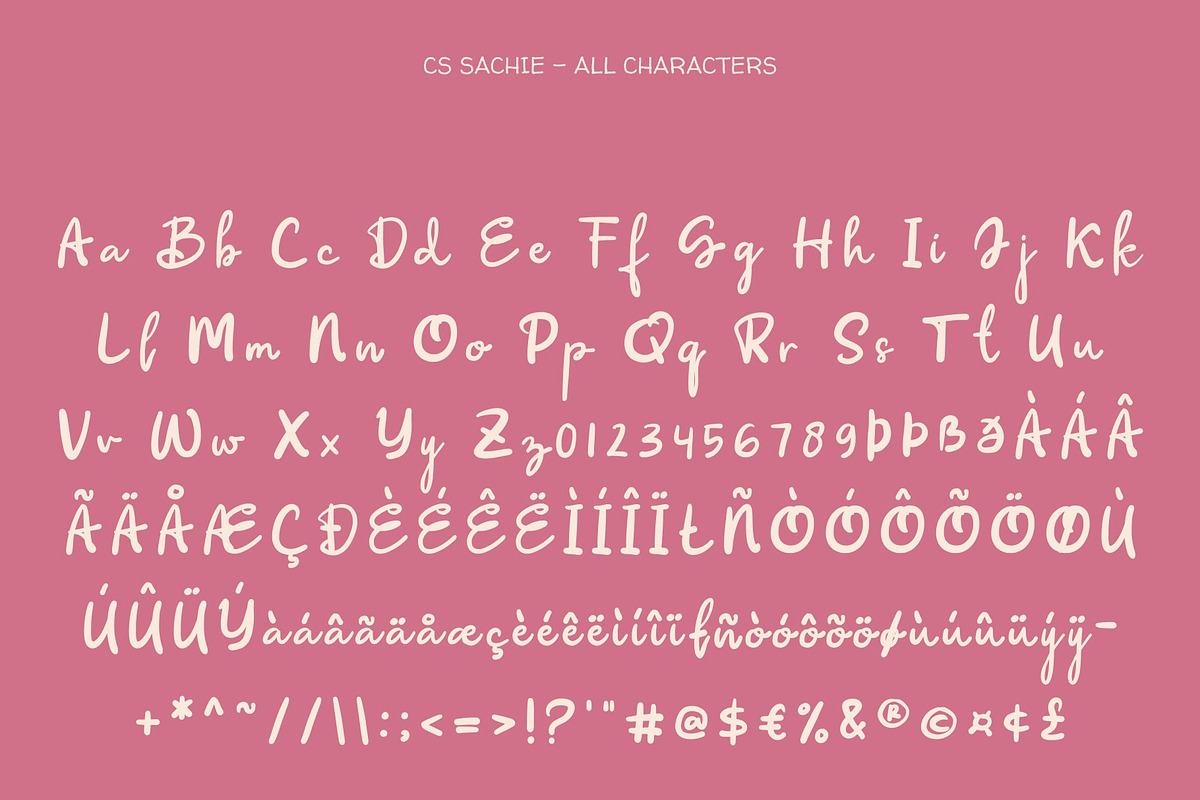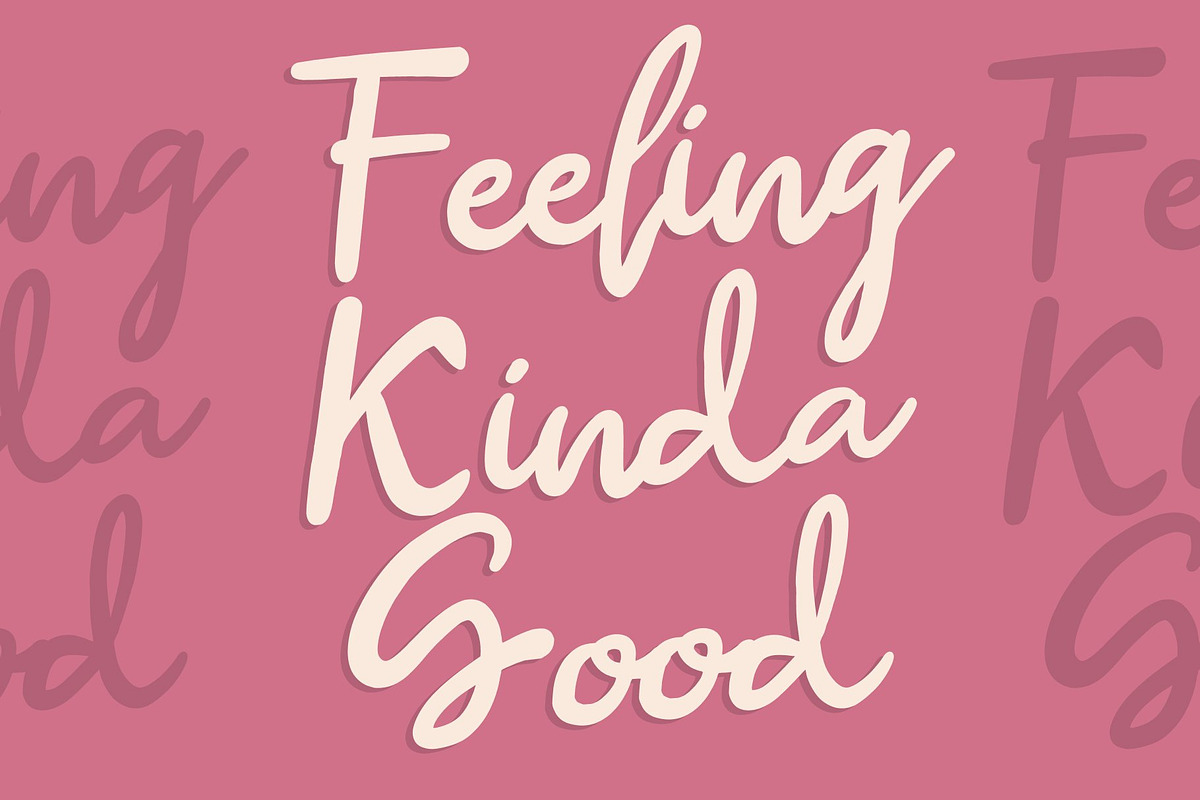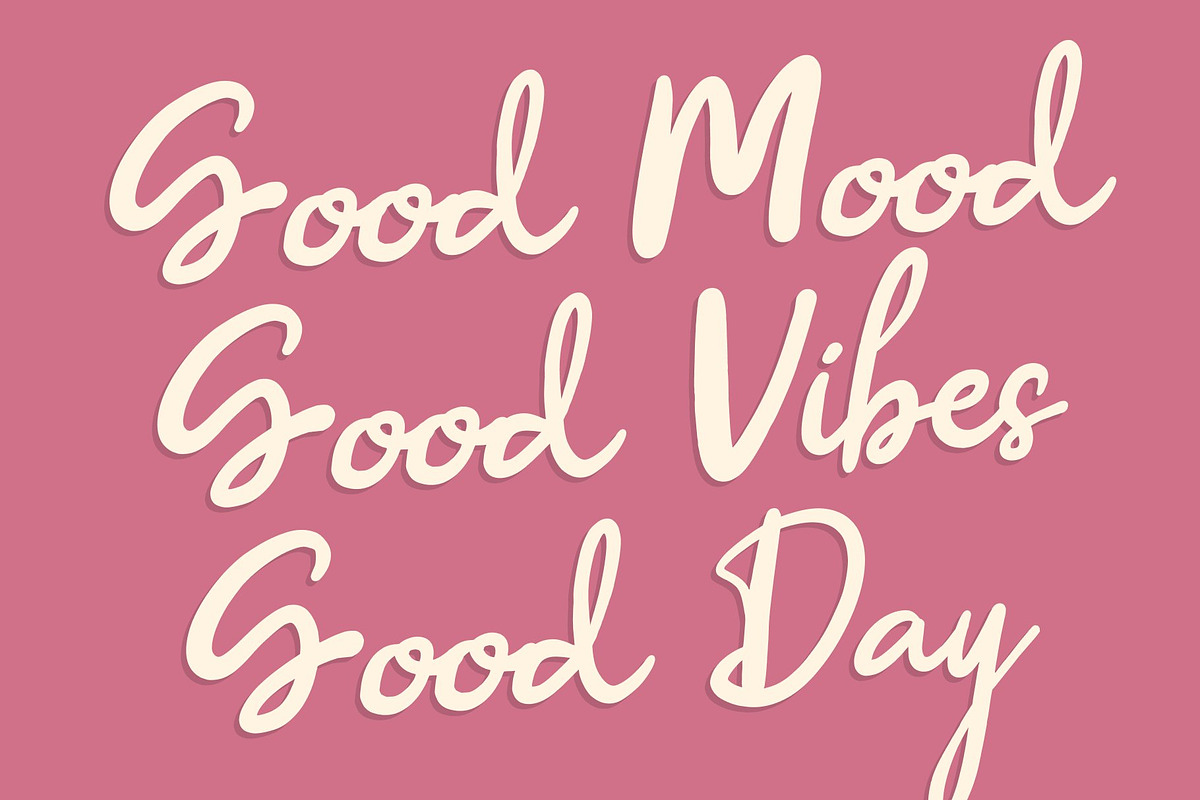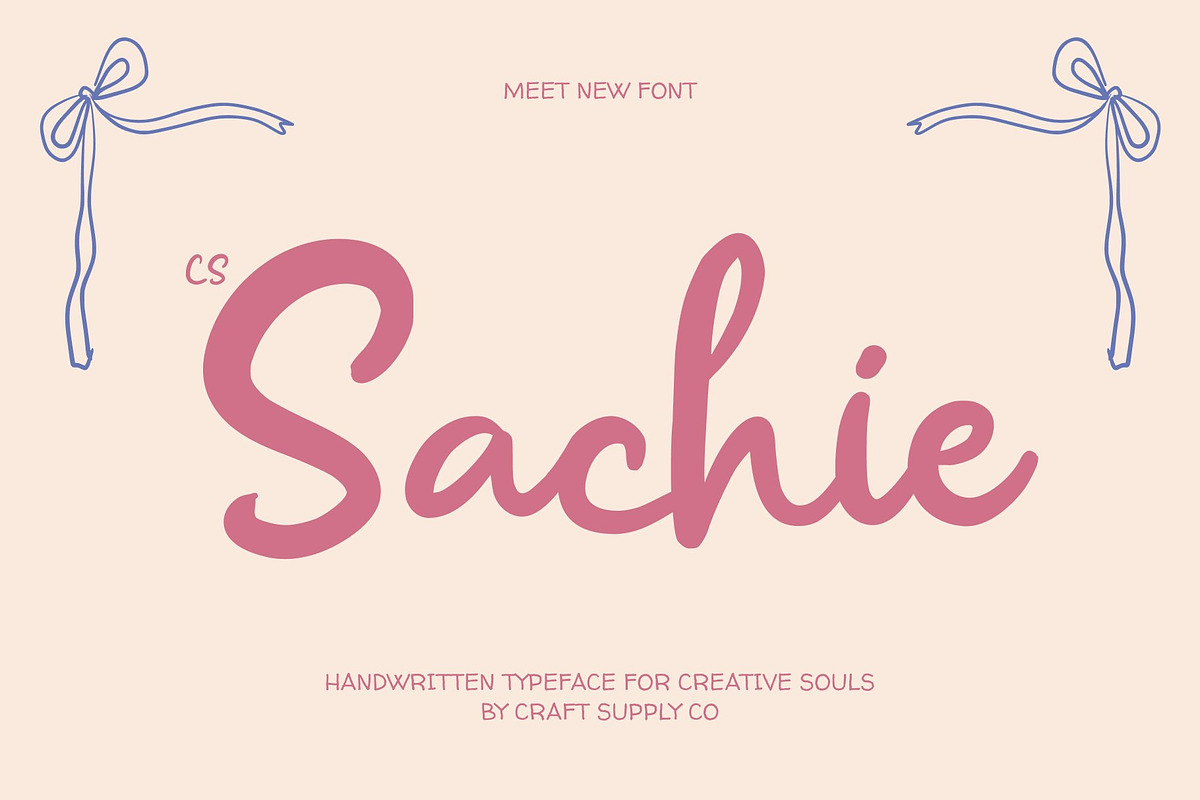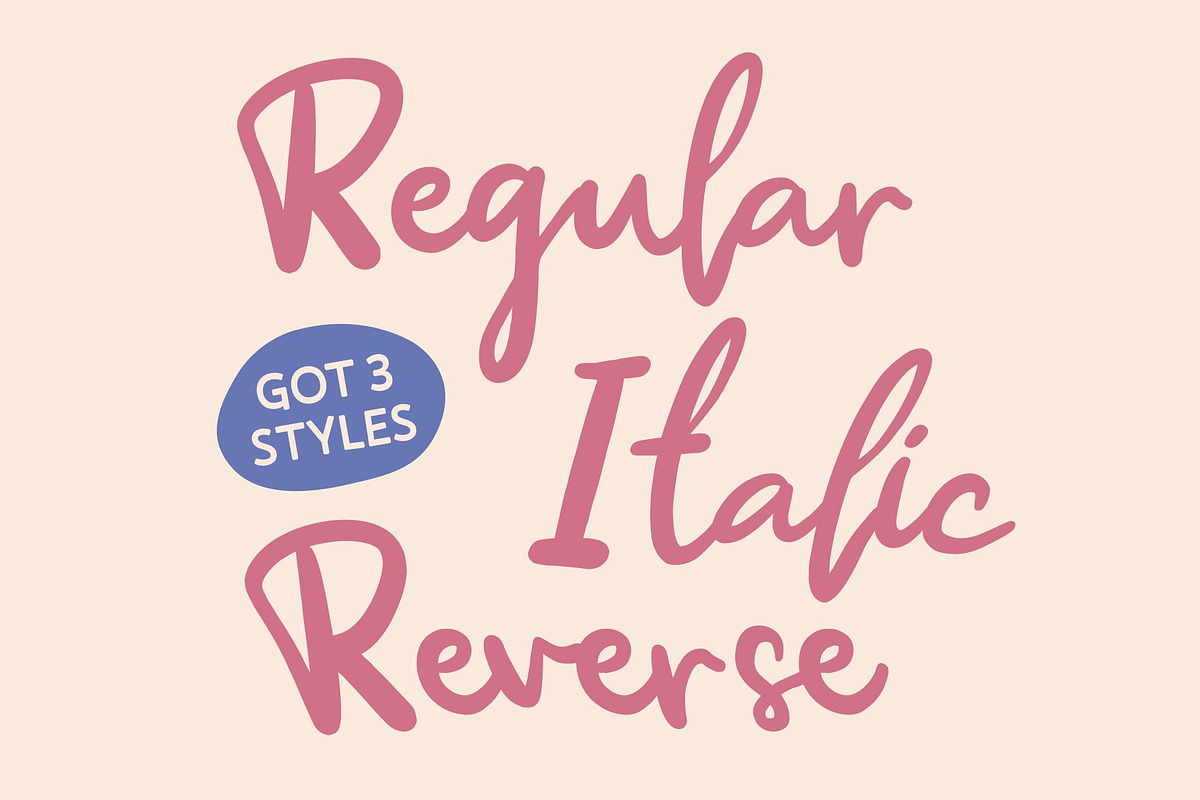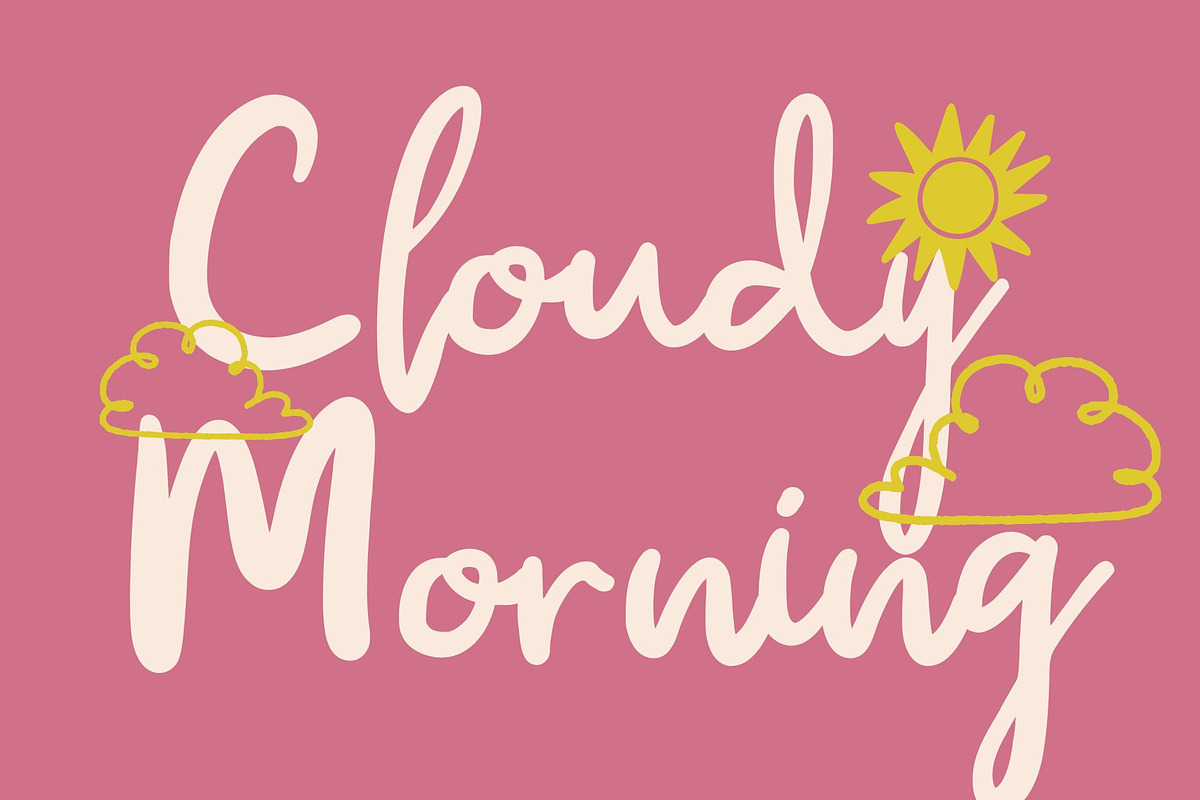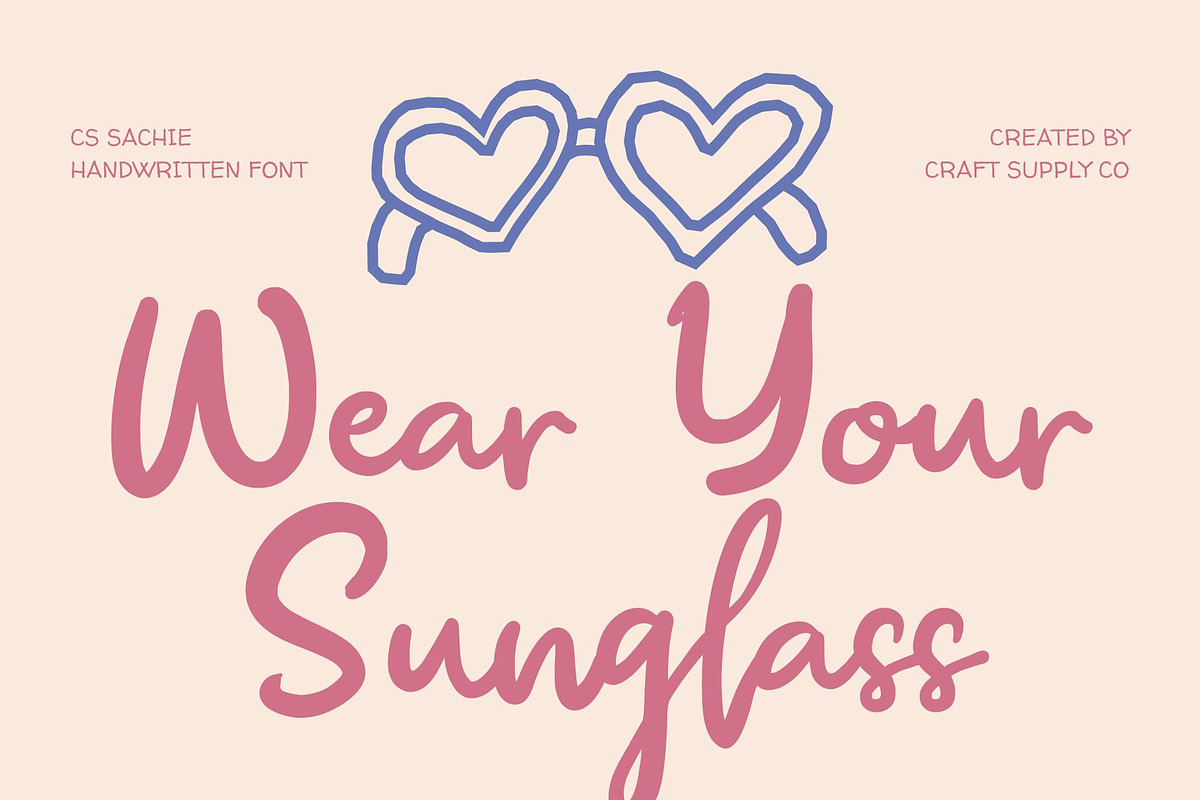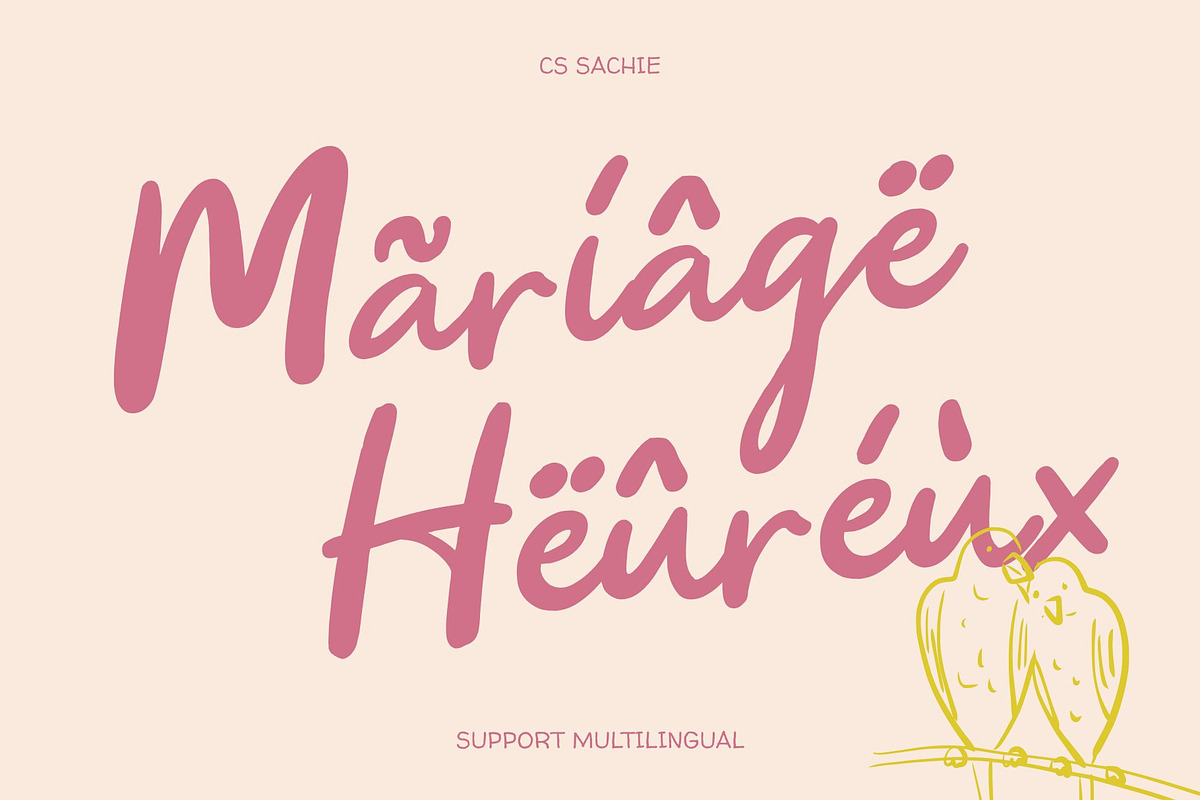
CS Sachie – Handwritten Script
CS Sachie – Chic Script Font with Delicate Creative Flourishes
Delicate Letterforms with Distinctive Personality This is a chic script font designed to express delicacy, elegance, and individuality through every stroke. Its flowing letterforms feel light and refined, carefully crafted to create a graceful rhythm that enhances visual appeal. Subtle curves and thoughtfully placed connections give the font a soft, expressive character, making it feel personal, stylish, and unmistakably special.
Creative Flourishes that Elevate Design What sets this font apart is its refined use of creative flourishes. These ornamental touches are applied with restraint, adding charm without overwhelming the composition. Each flourish feels intentional, enhancing the natural movement of the script while bringing a sense of artistry and sophistication. The result is a font that stands out effortlessly, perfect for designs that require a unique.
Chic Aesthetic with Fashion-Forward Appeal This font carries a chic sensibility that aligns beautifully with fashion, lifestyle, and luxury-oriented visuals. Its elegant curves and smooth flow create a refined mood that feels modern yet timeless. Whether used as a primary headline or a supporting accent, the font delivers a stylish impression that feels curated and premium.
Ideal for Branding, Invitations, and Fashion Graphics Designed for expressive applications, this font excels in branding, invitations, wedding materials, fashion graphics, packaging, and social media visuals. It adds warmth and refinement to logos, stationery, and promotional designs, making every message feel thoughtful and elevated.
- CS Sachie Regular
- CS Sachie Italic
- CS Sachie Reverse Italic